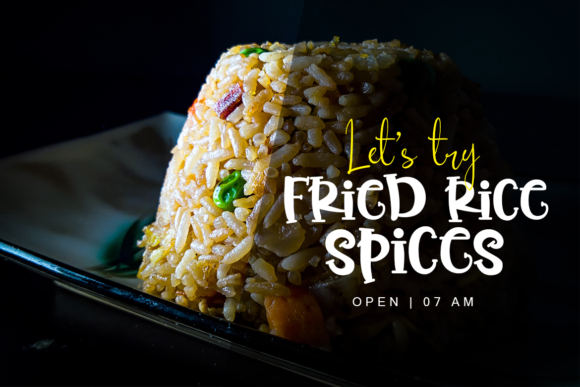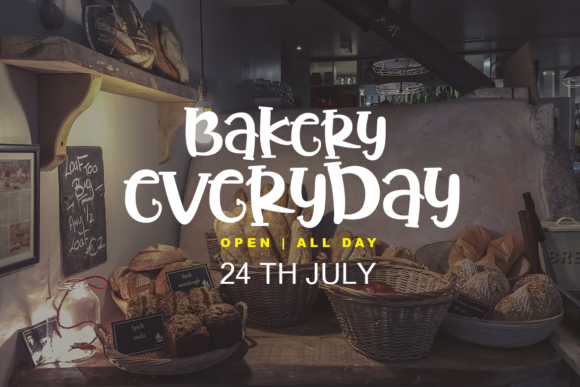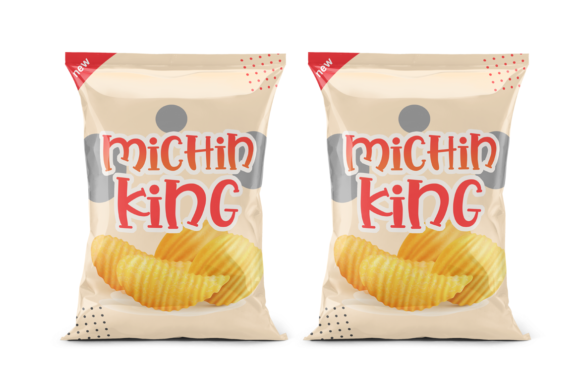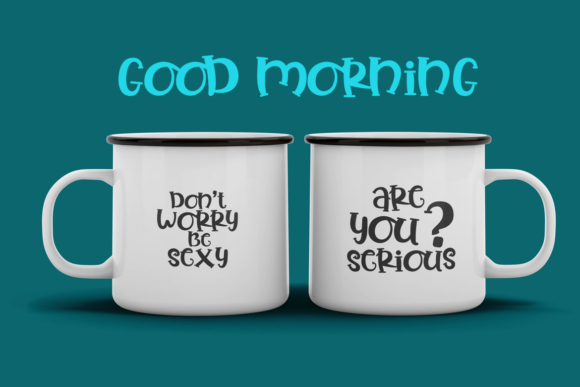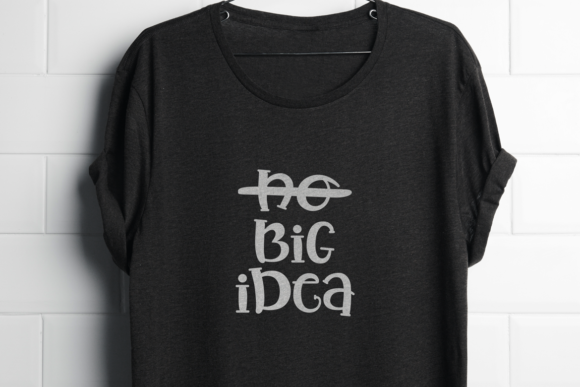
Bread Story Font
BREAD STORY FONT SPECIMEN
Bread Story is an adorable quirky serif font. It will add an incredibly joyful touch to your designs.
Fall in love with its playful style and use it to create beautiful stationary art, eye-catching social media posts, and much more!